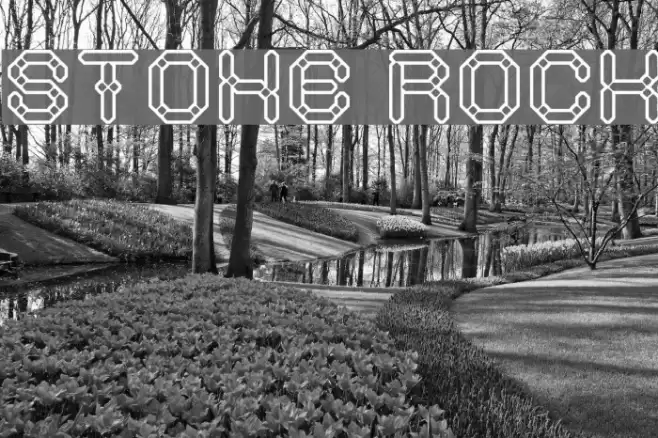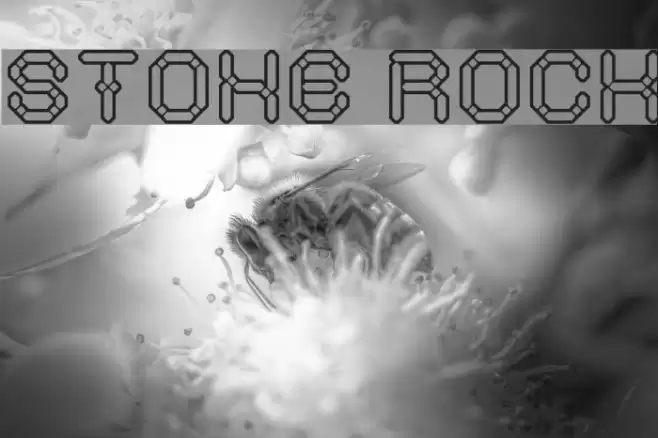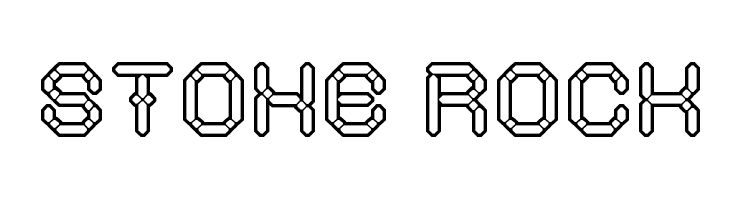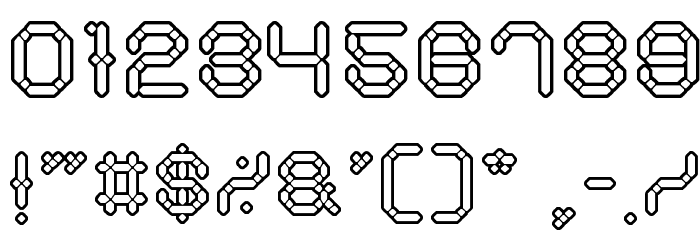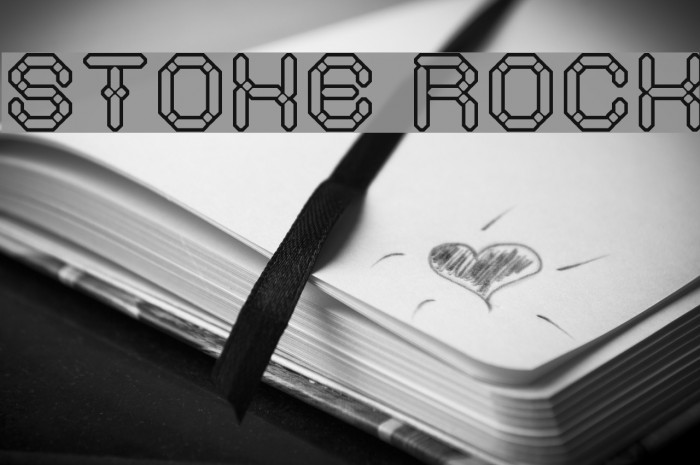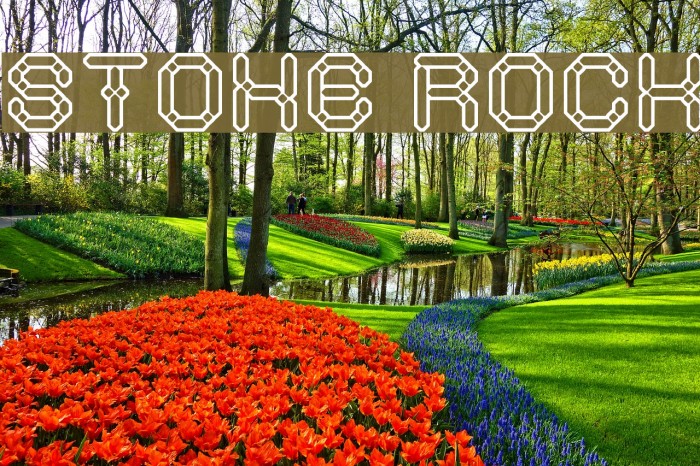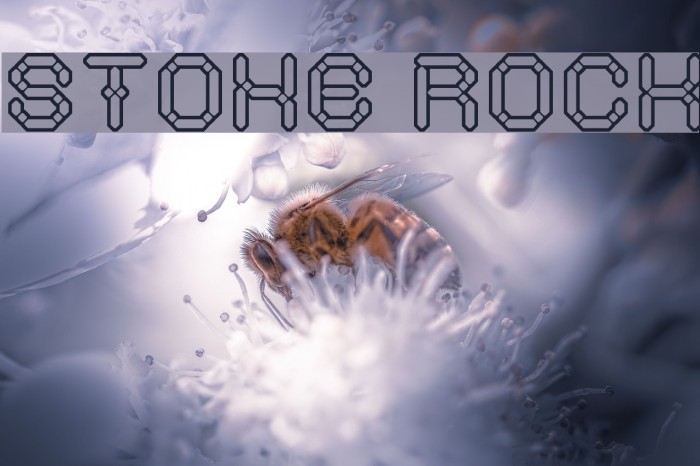
STONE ROCK Font
STONE ROCK Description
This font features a unique, geometric design that resembles interconnected stones or rocks, creating a bold and striking appearance. Each character is constructed with a series of angular lines and shapes, giving it a three-dimensional, block-like effect. The uppercase and lowercase letters maintain a consistent style, with a uniform thickness throughout the strokes. Numbers and special characters follow the same design principles, ensuring a cohesive look across all elements. The font's distinct style makes it stand out, ideal for projects that require a modern and edgy aesthetic.
A geometric, stone-like font with bold, angular lines and a three-dimensional effect from Uncategorized fonts.
- Proposed Projects: Ideal for branding, posters, video game graphics, and any project needing a modern, edgy look.